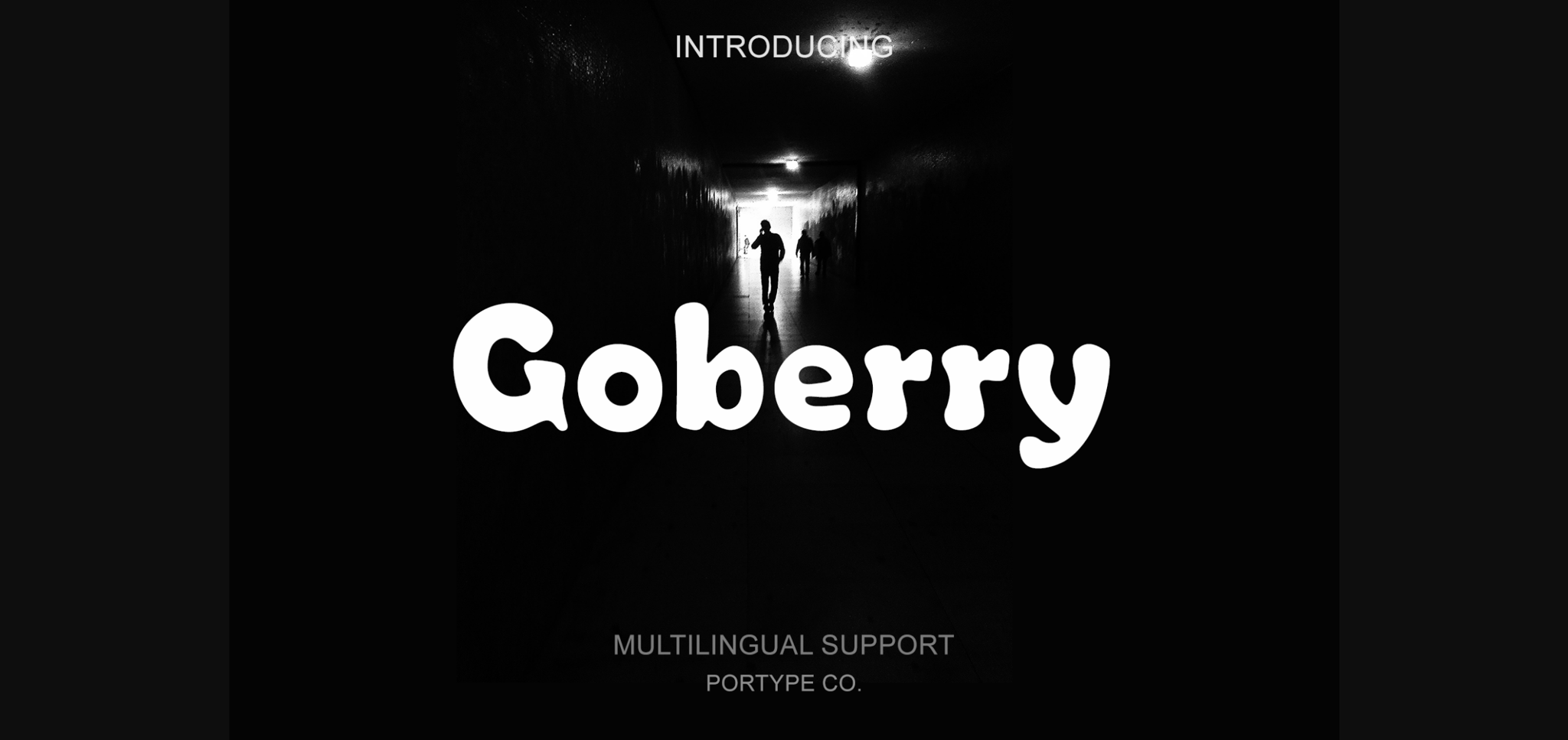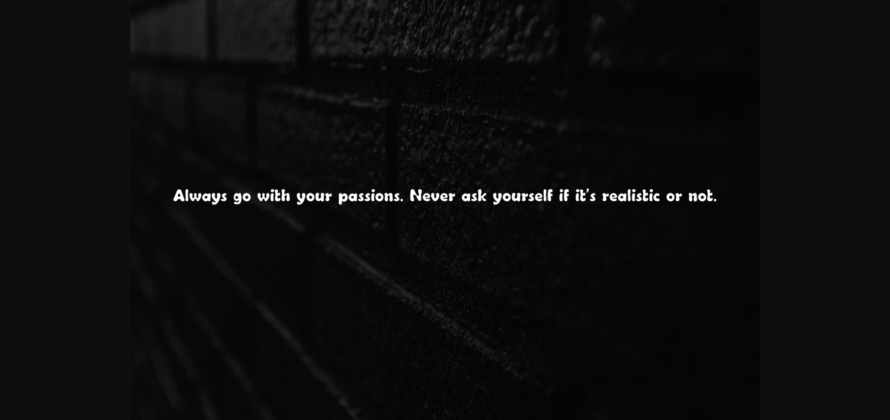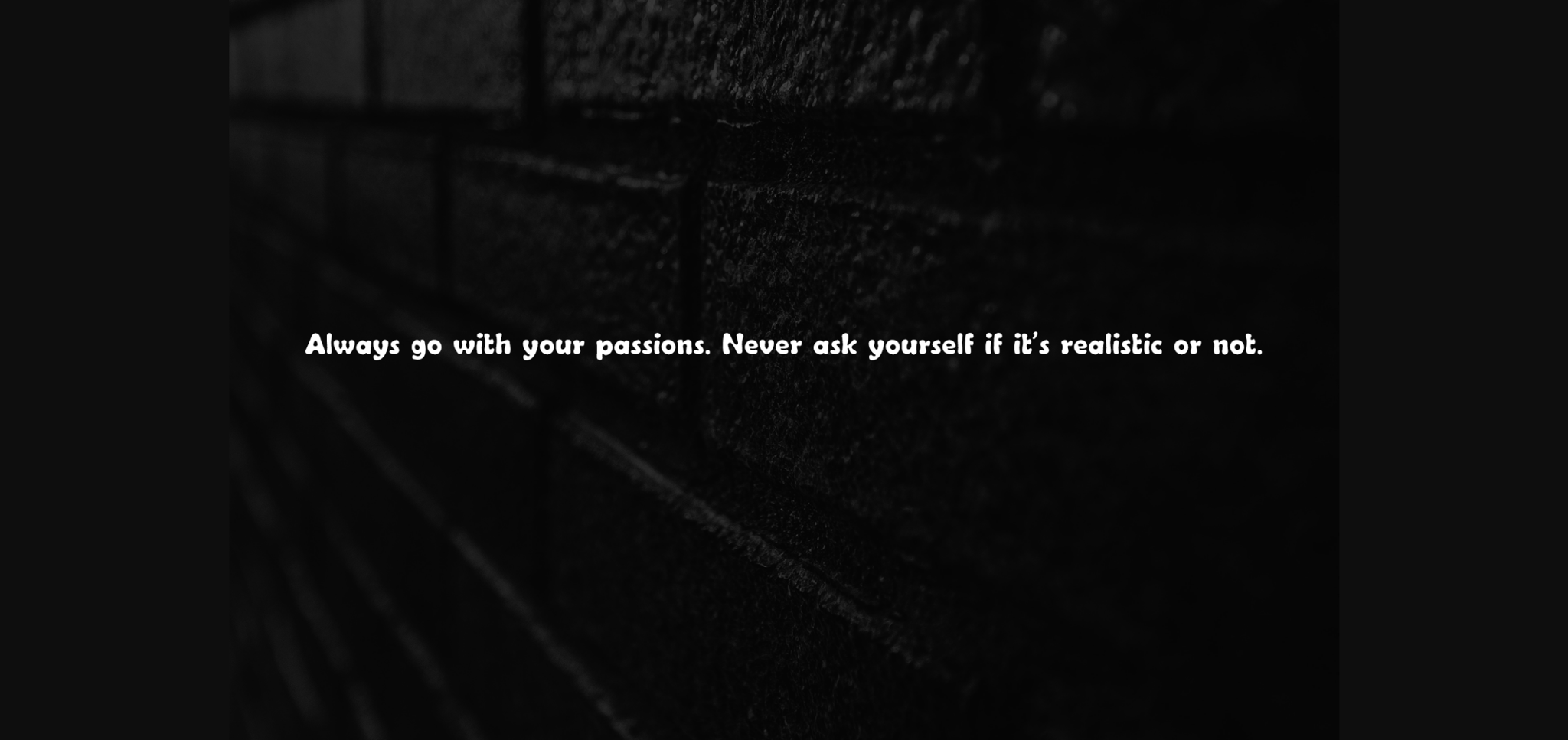
About Goberry Font
Goberry is a Sans Serif font inspired by Halloween pumpkins. The font looks casual, playful, and clear. It’s perfect for any musical-themed, jazzy design. Suitable for any design needs, branding, urban design, modern advertising design, Book/Cover Title, special events, adventures, headlines, clothing, and more.